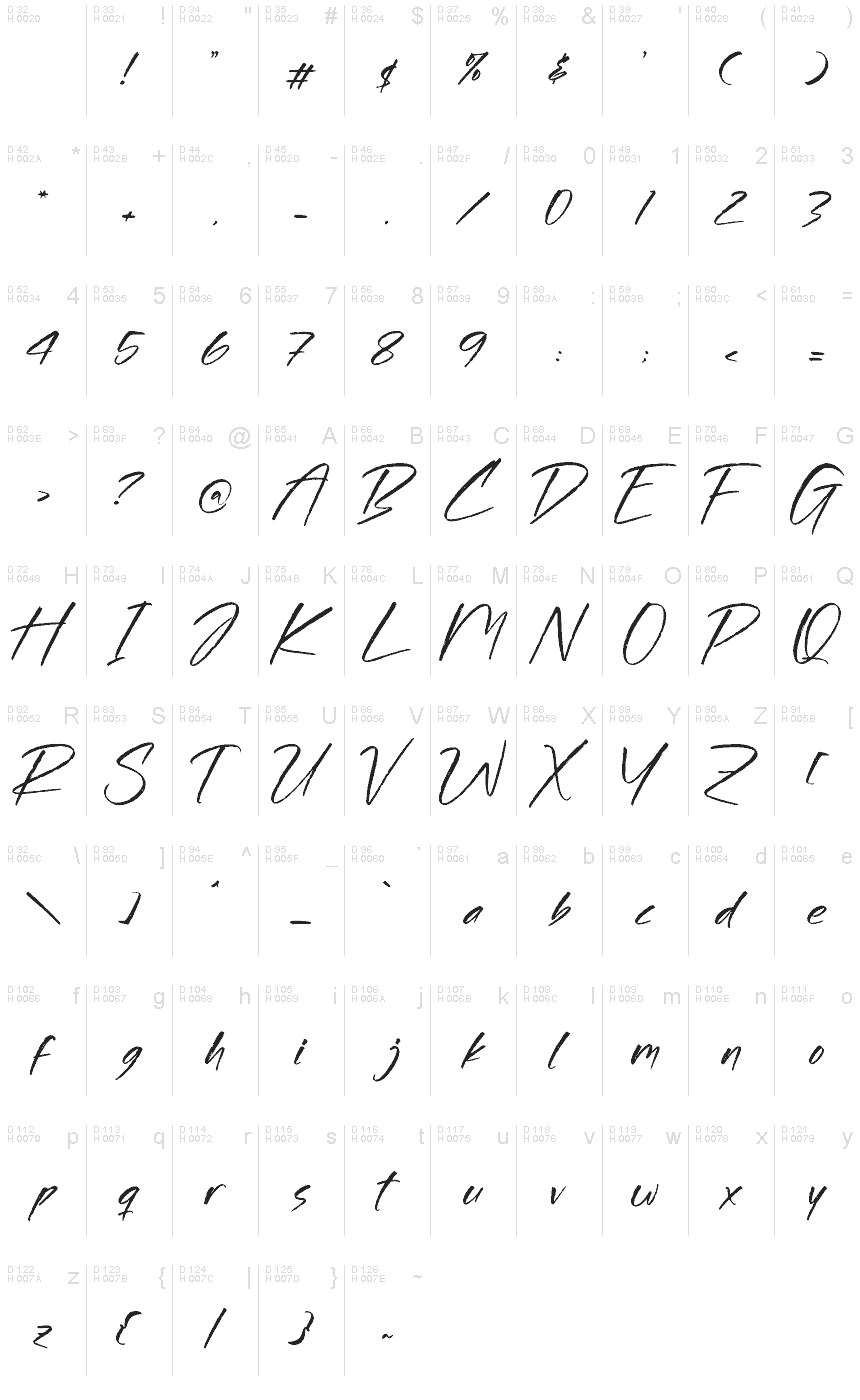
Brockles Richard
Brockles Richard font designed by Letterena Studios is a beautiful free handwritten font. Elegant, expressive, and flowing, the font holds a modern feel fit for contemporary applications in fashion or branding. Each letter comes with enough personality that helps achieve personality while maintaining a casual elegance.
Several applications can benefit from Brockles Richard’s charm such as product packaging, labels, posters, card designs, logotypes, branding concepts – the list goes on! wordmarks for firms in fashion or food industries similarly will find this font to be the perfect addition that makes their audience curious about what they offer.